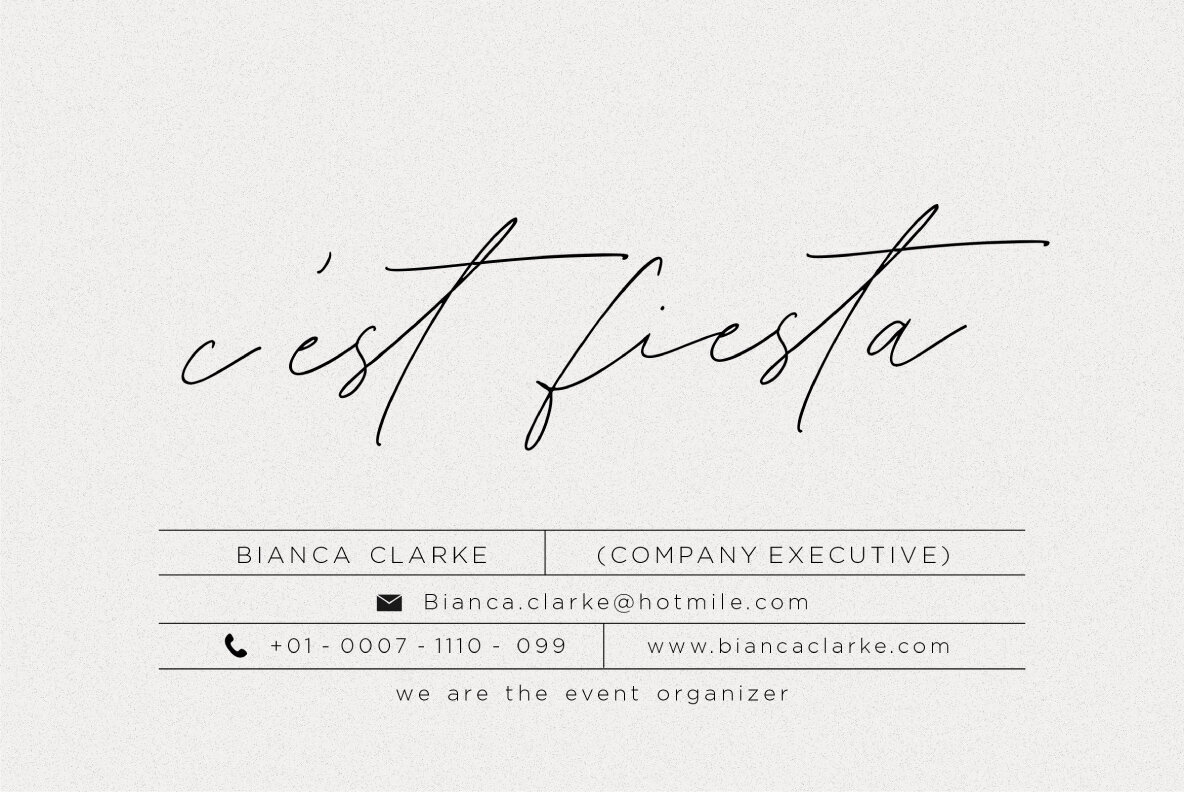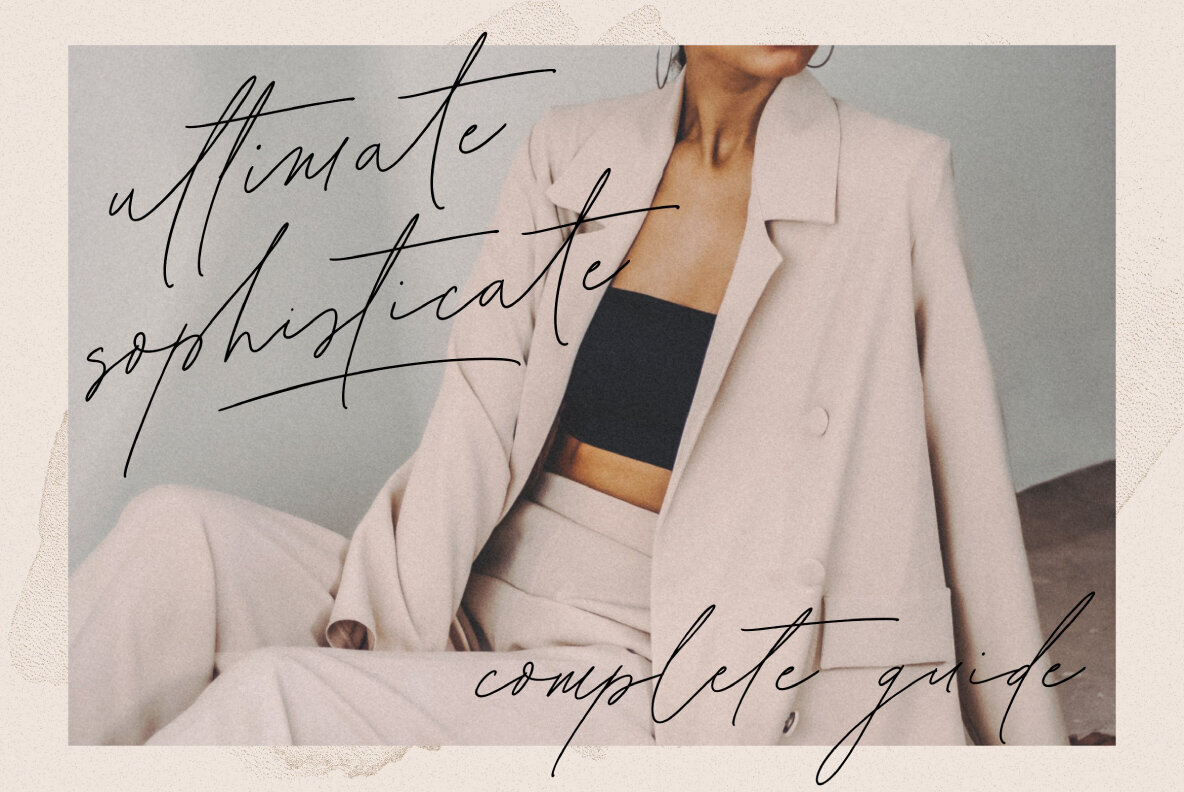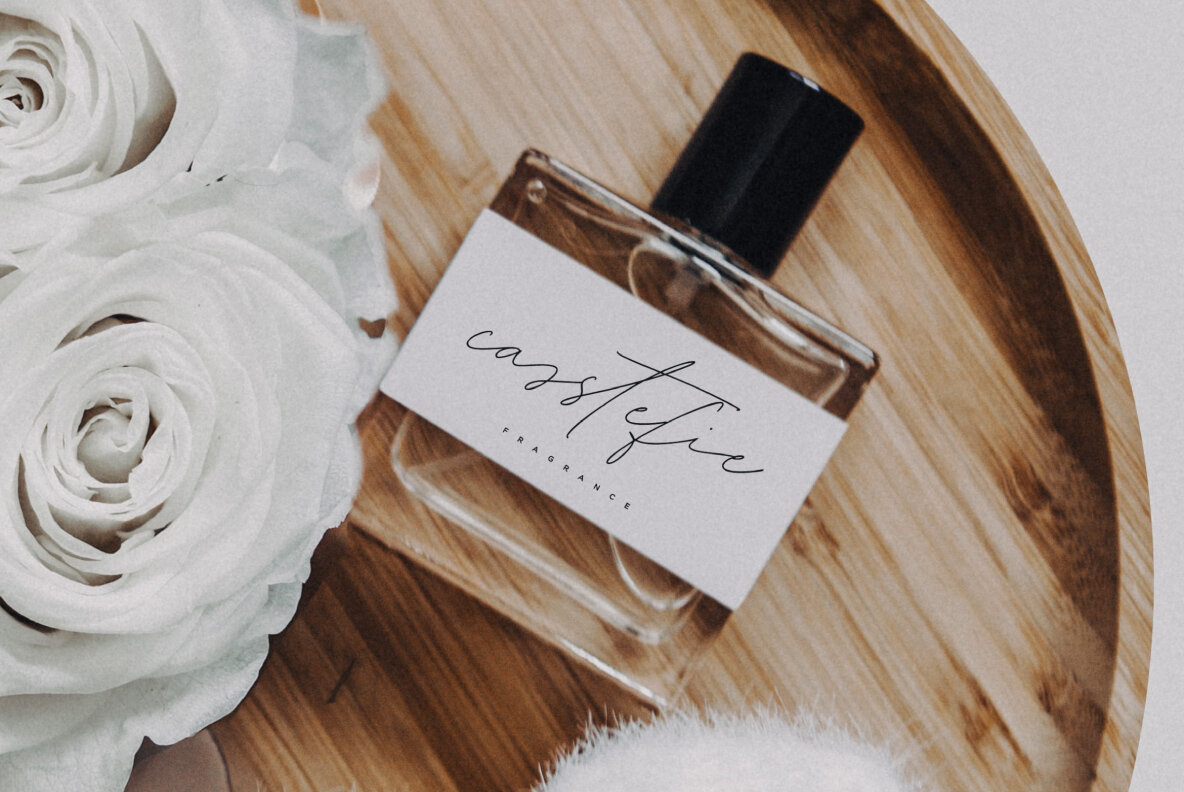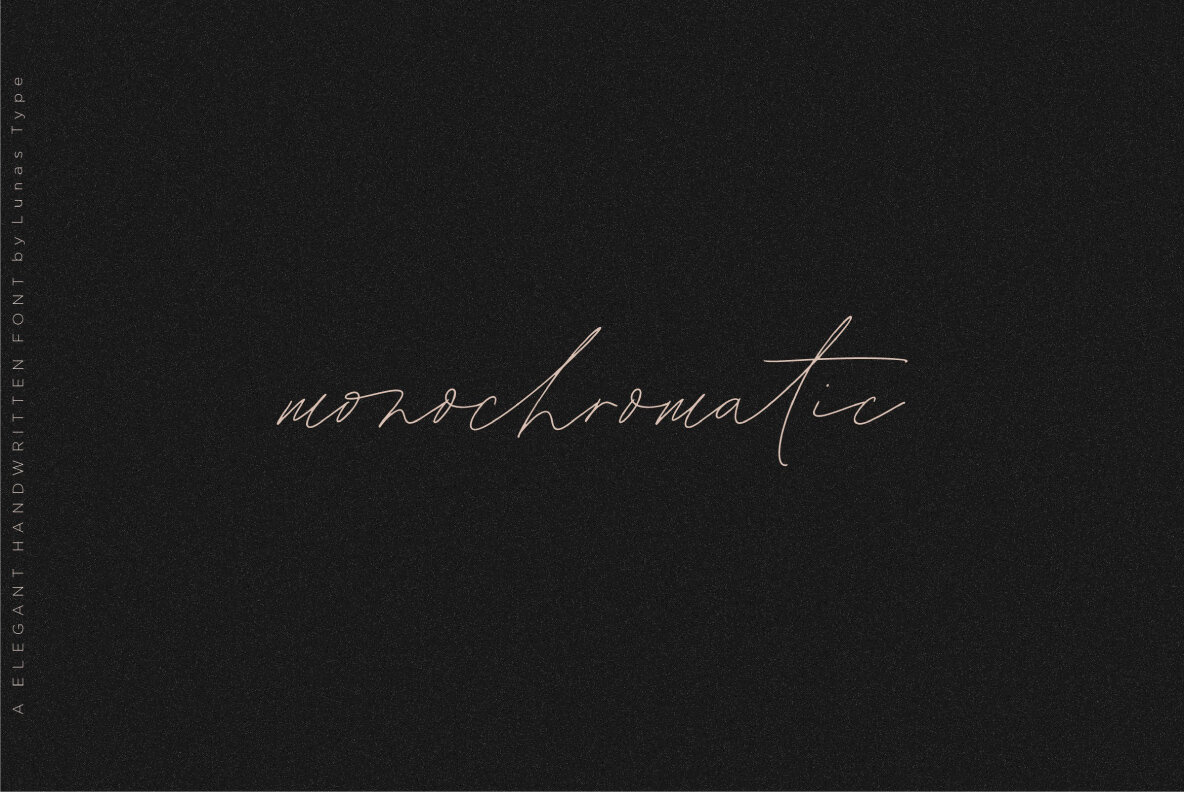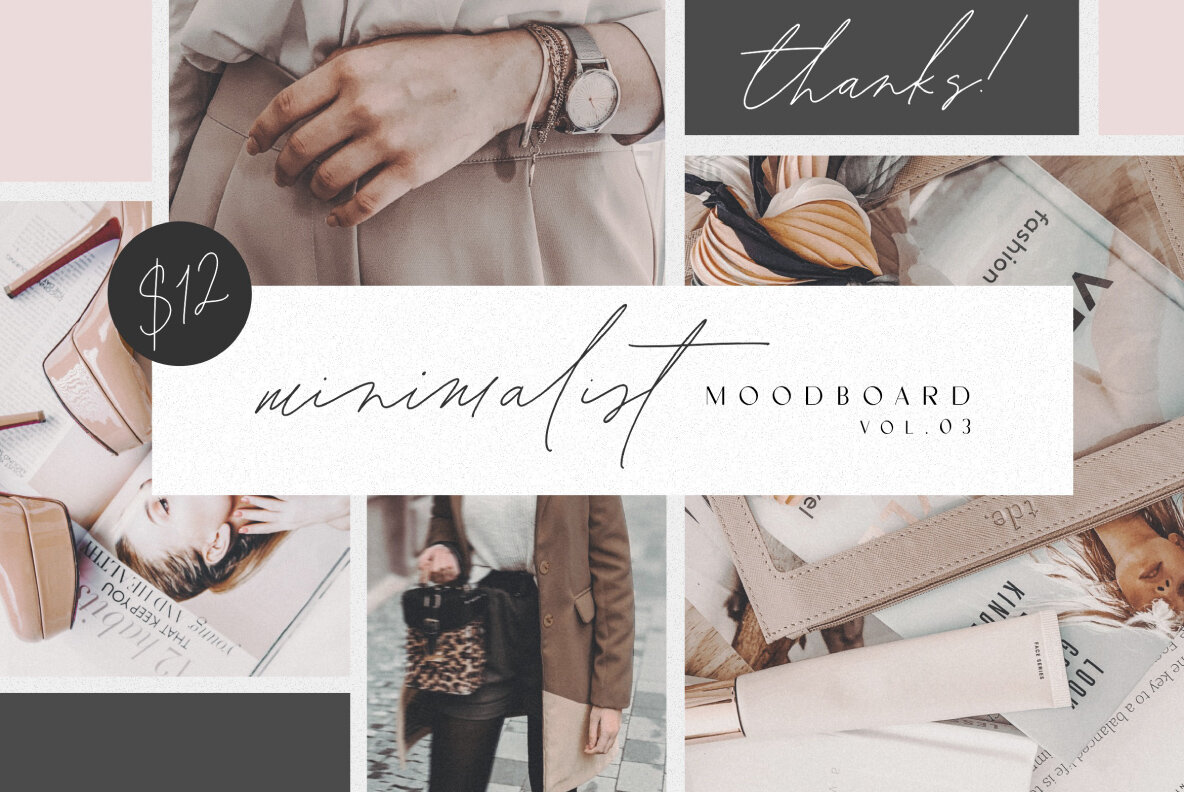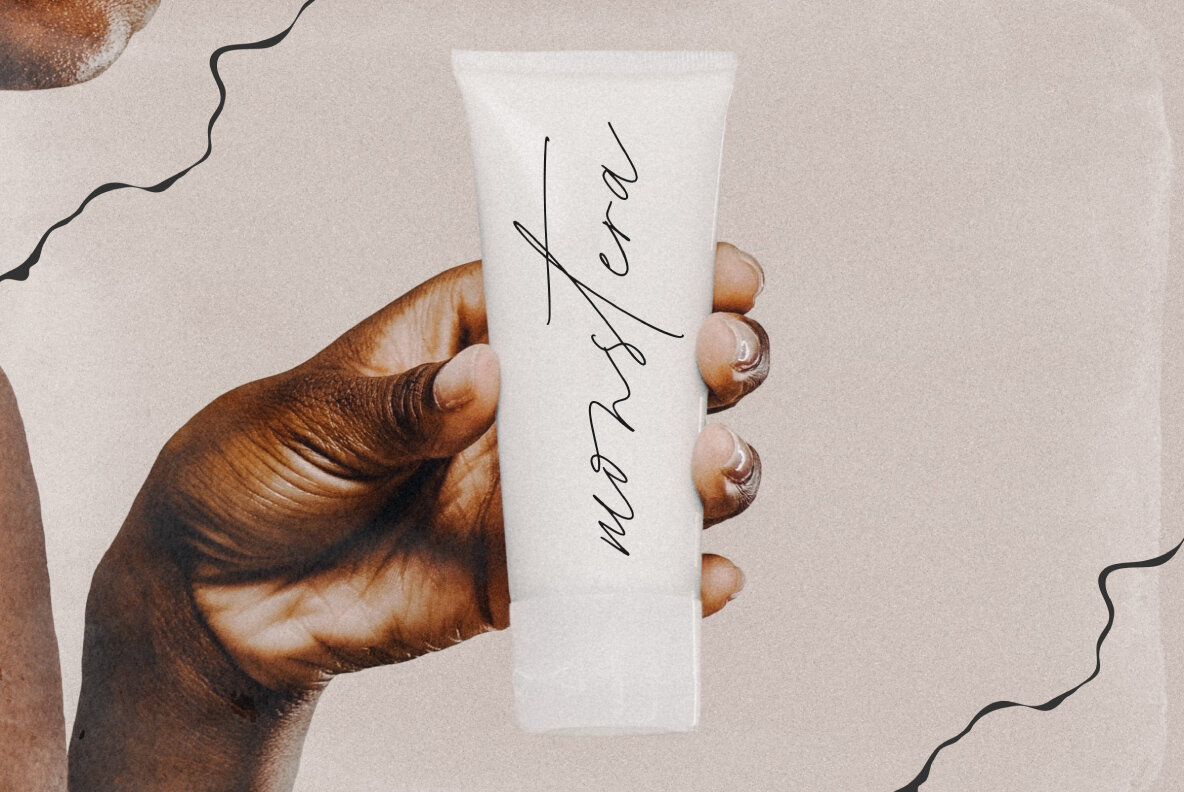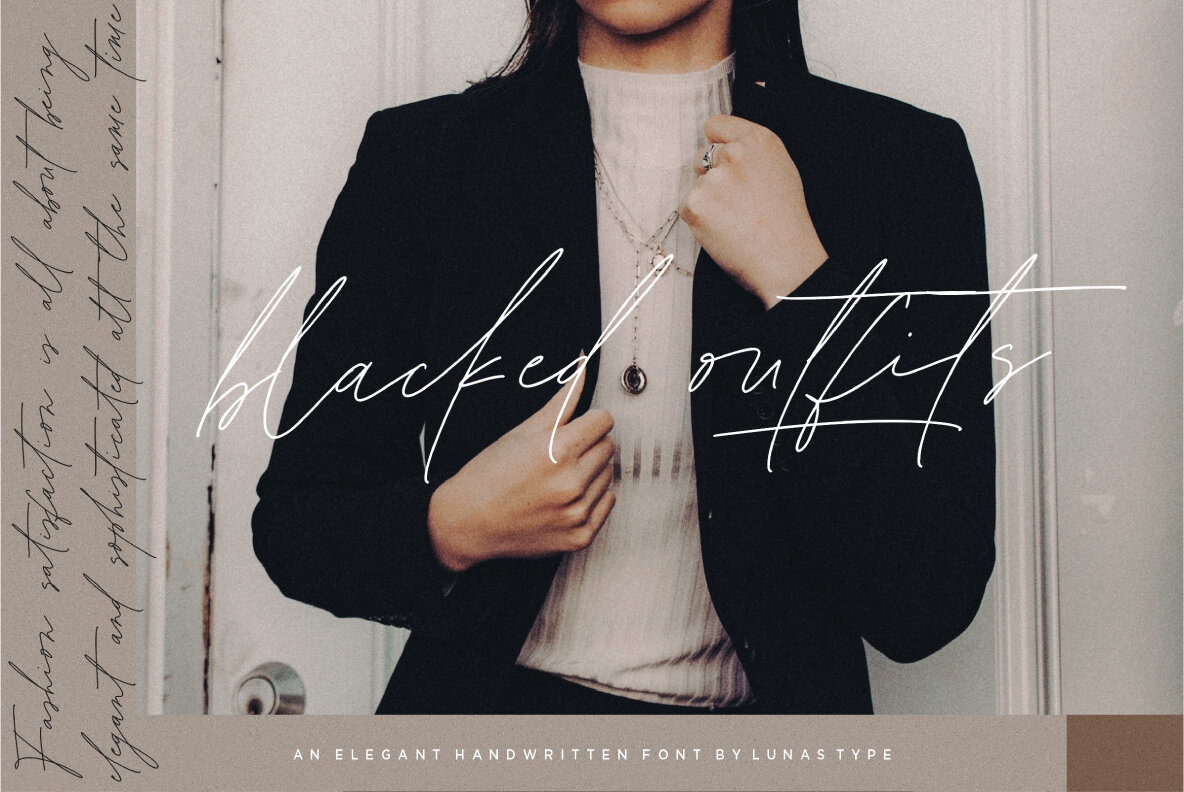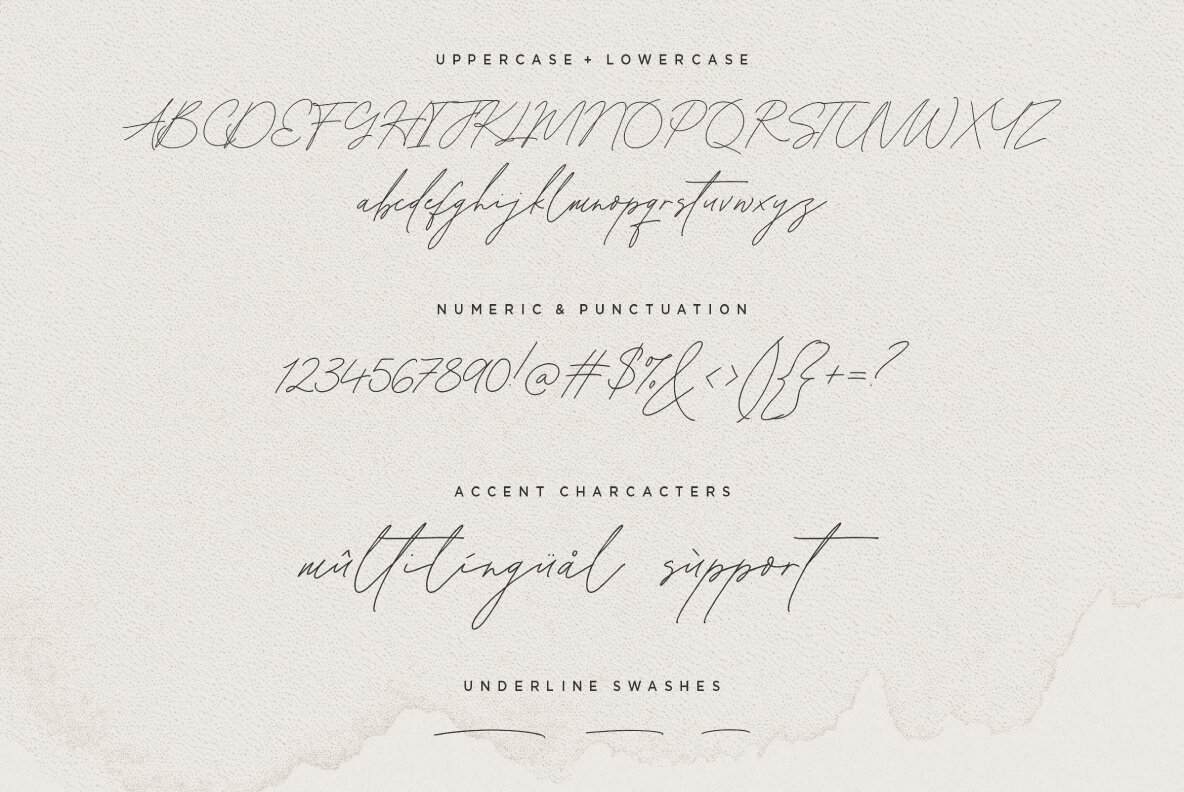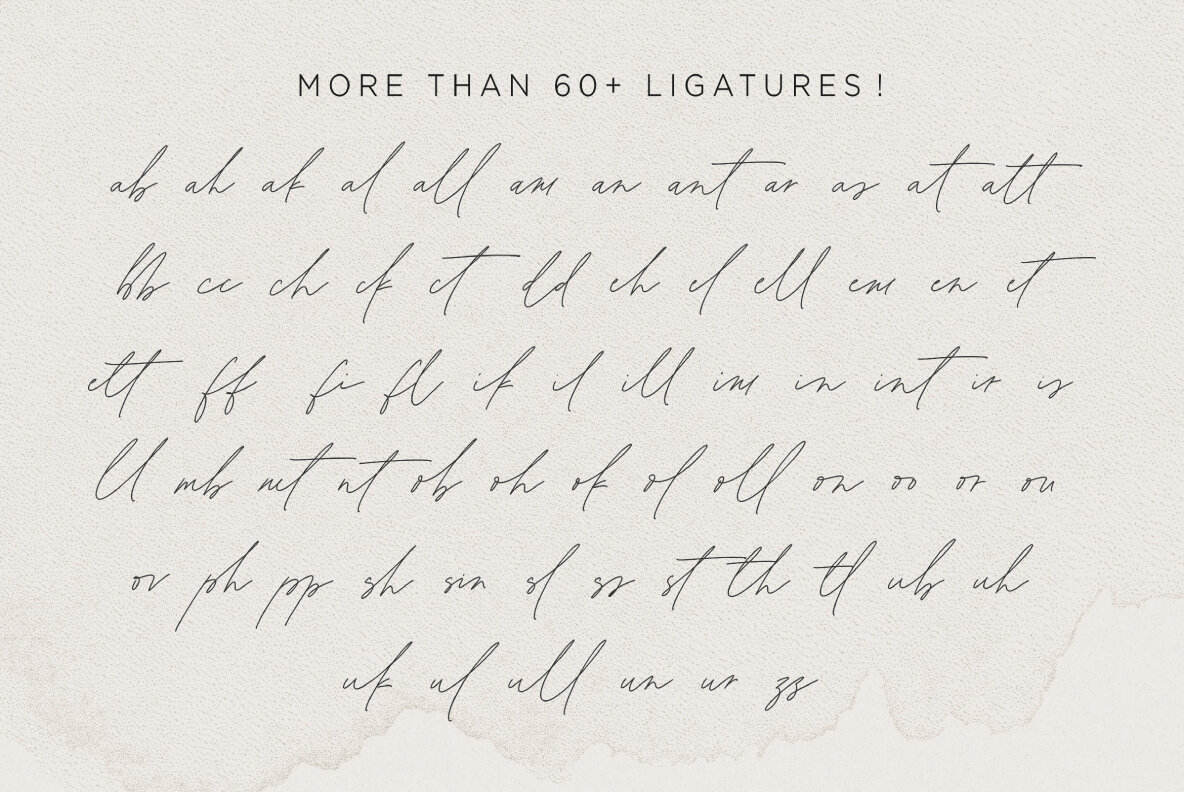
Bleached Magenta Font
Bleached Magenta
Bleached Magenta is the perfect font to use for all your design needs! It has an elegant and tasteful look that will add charm wherever you need it.
- Underline swashes.
- Numeral & Punctuation.
- More than 60+ ligatures.
- Multilingual Support.